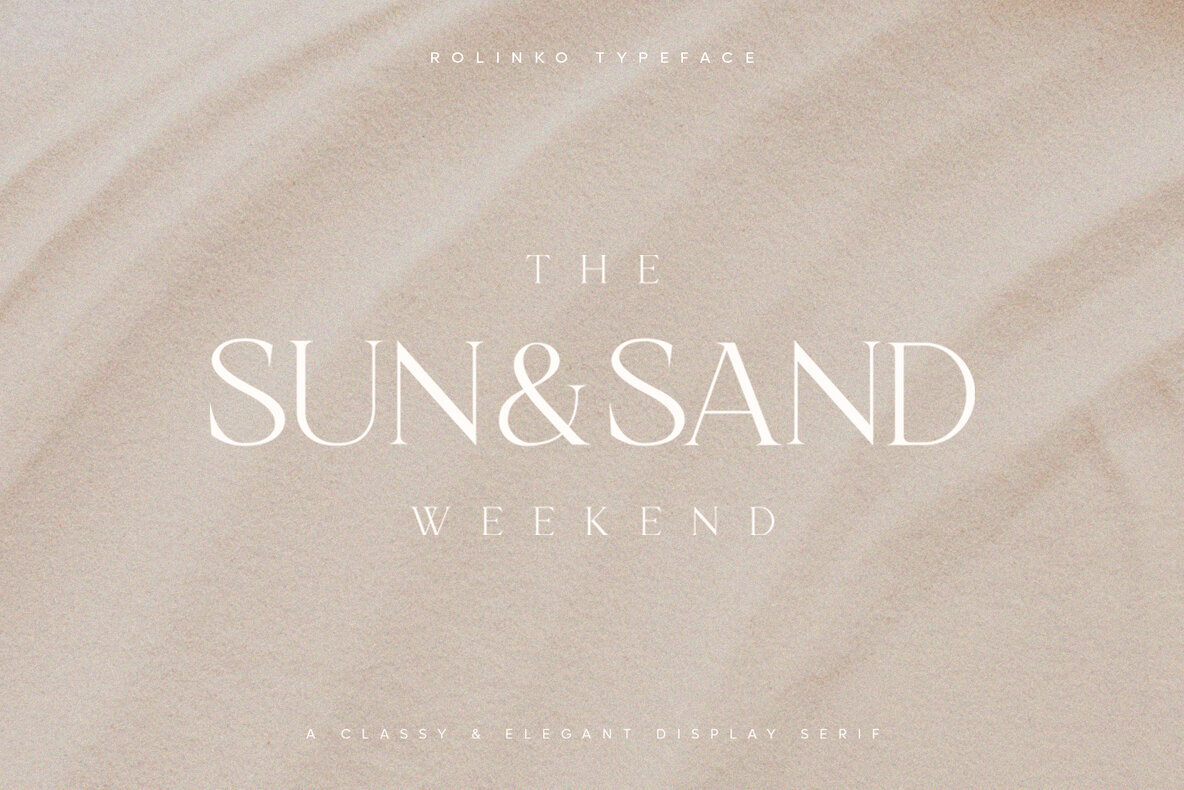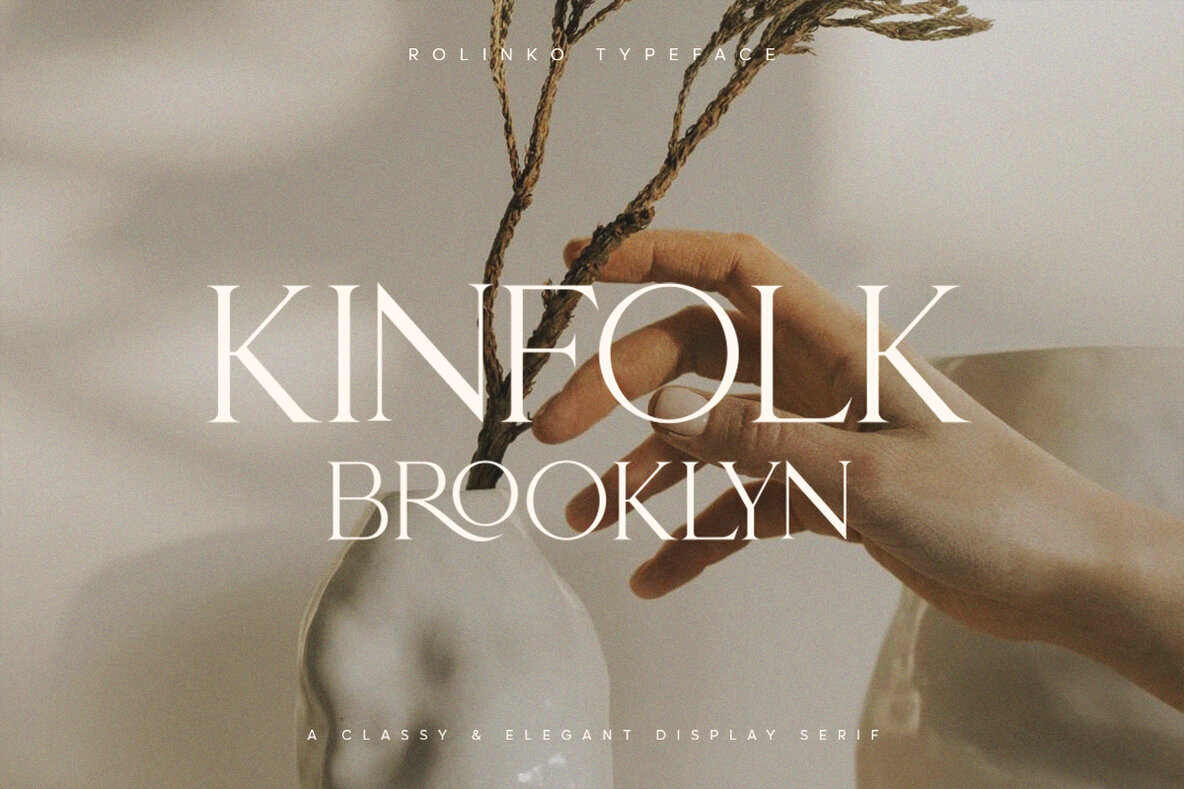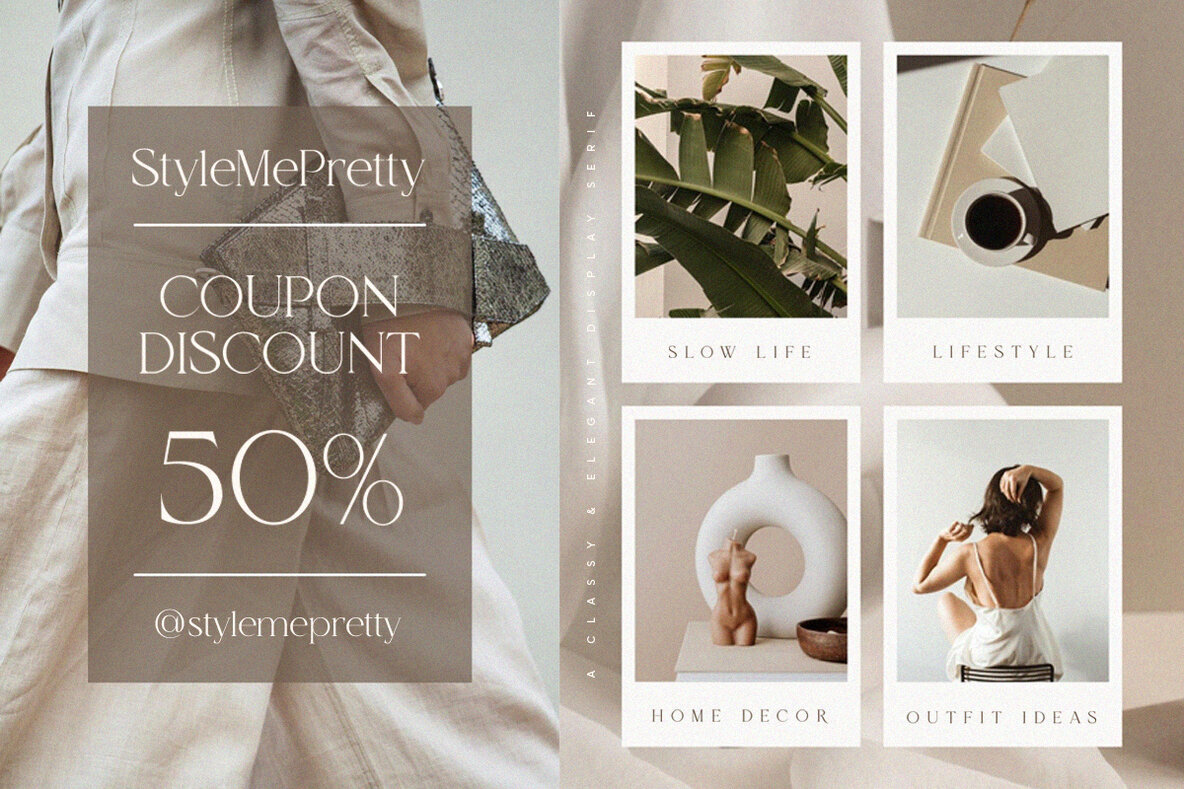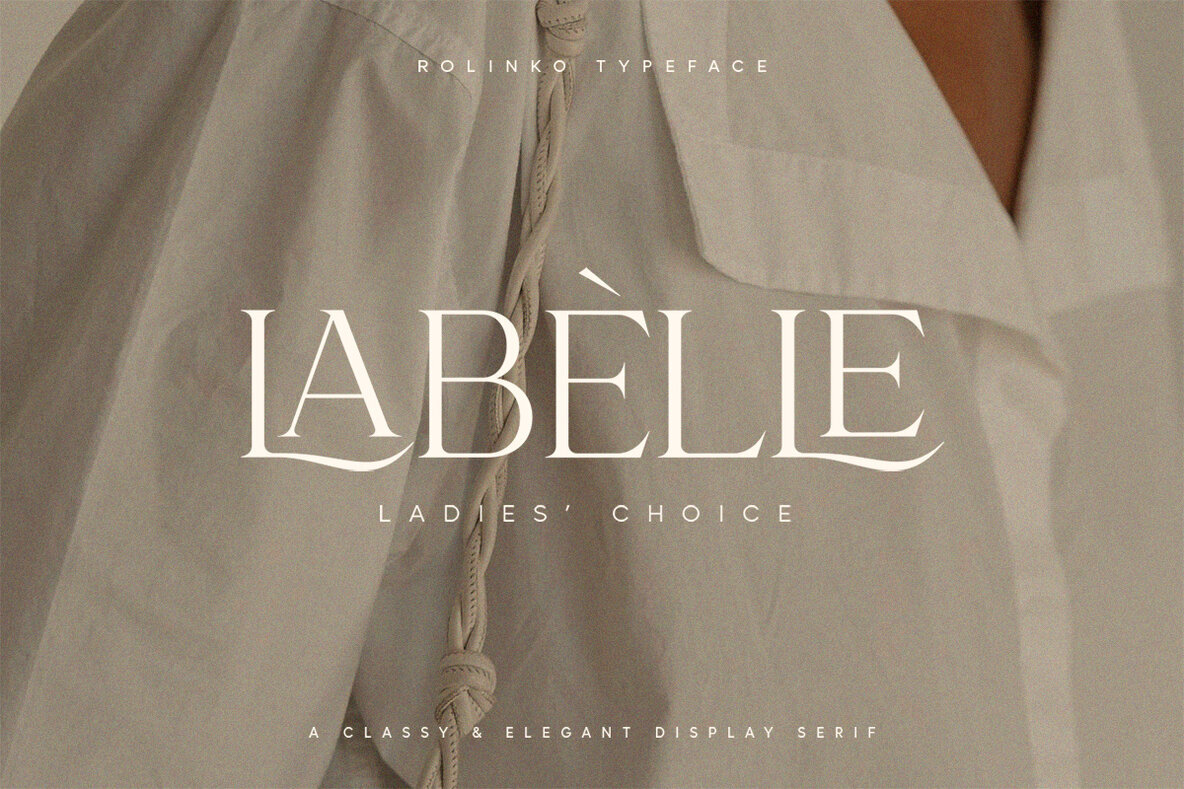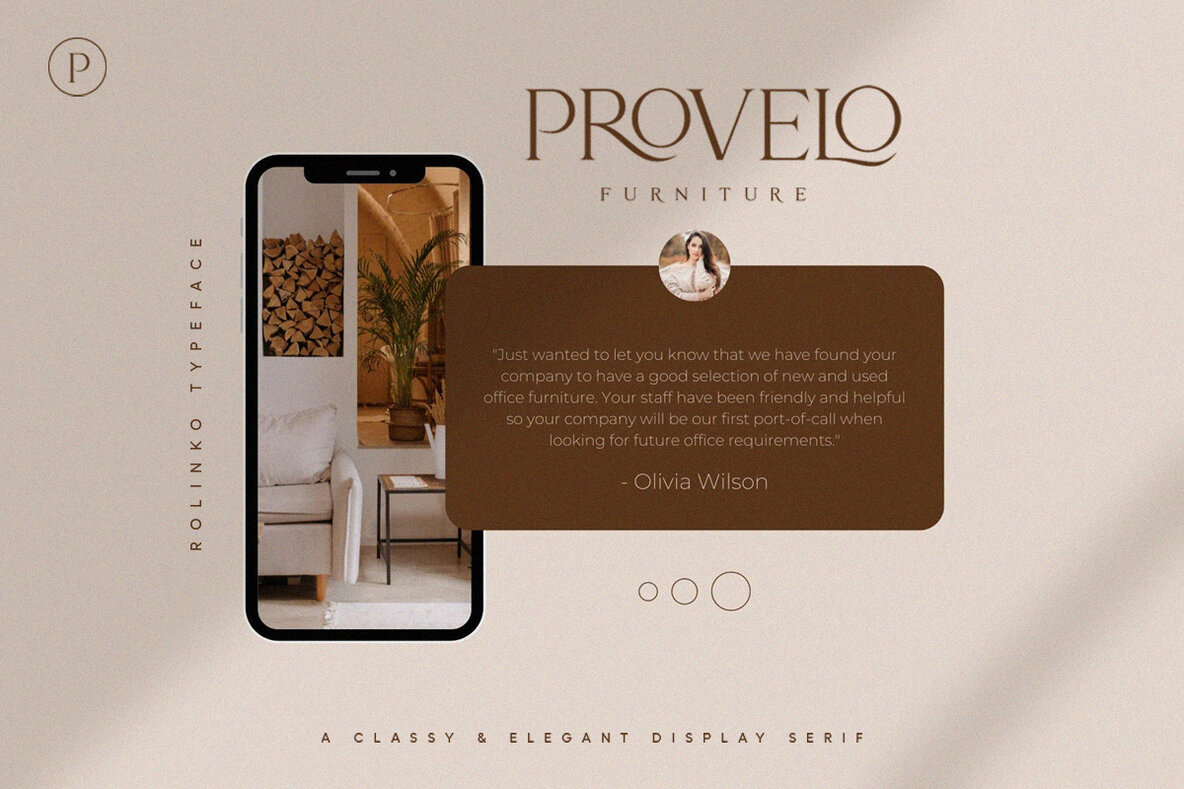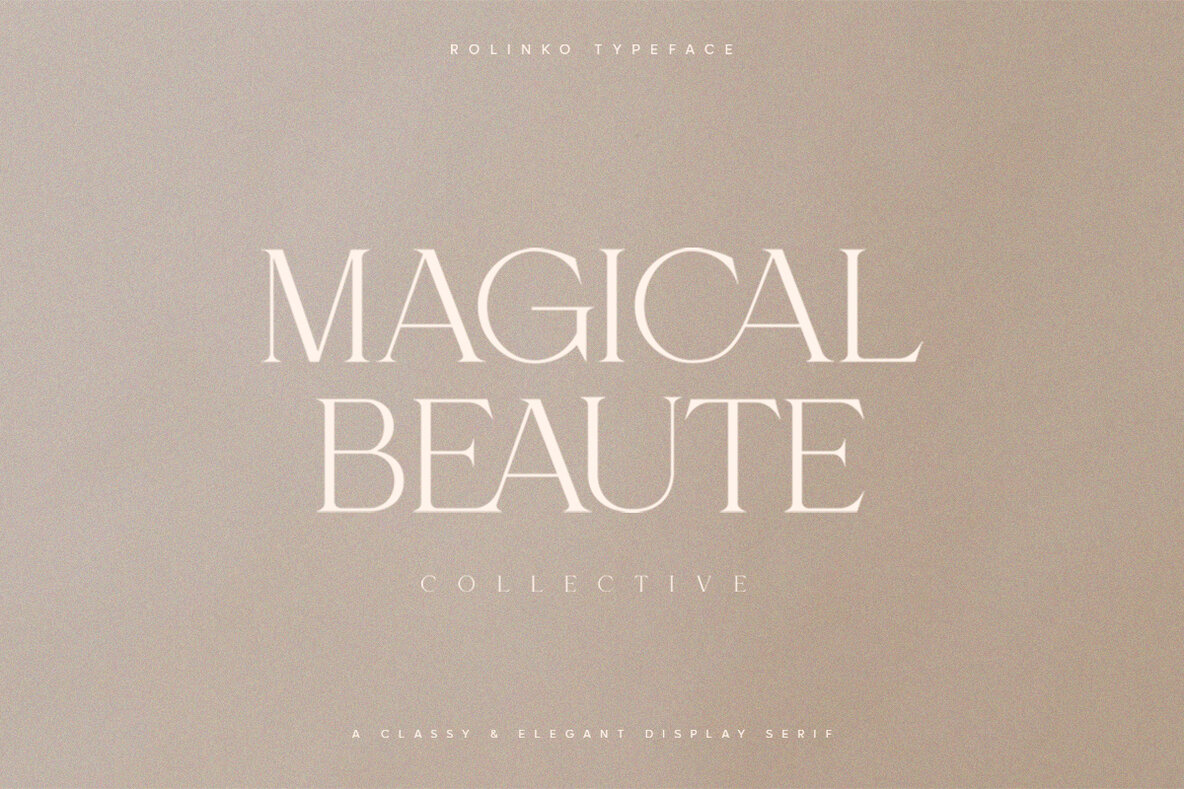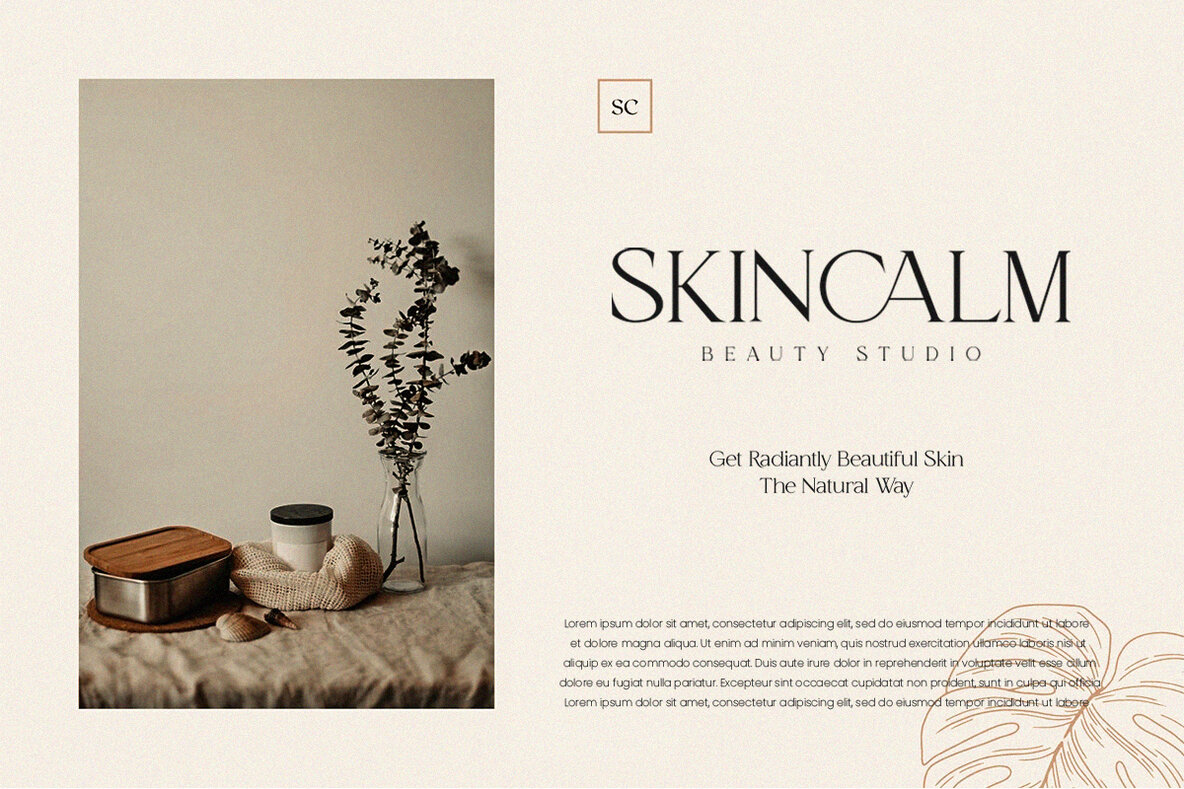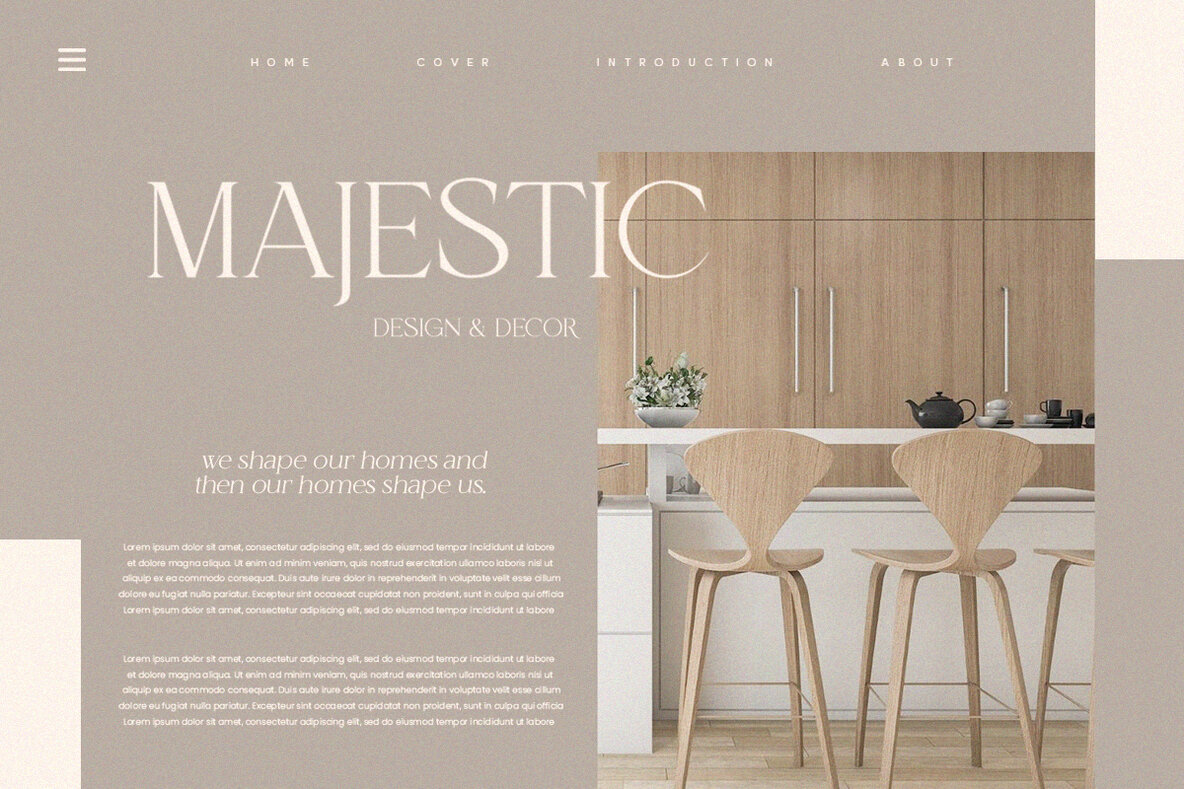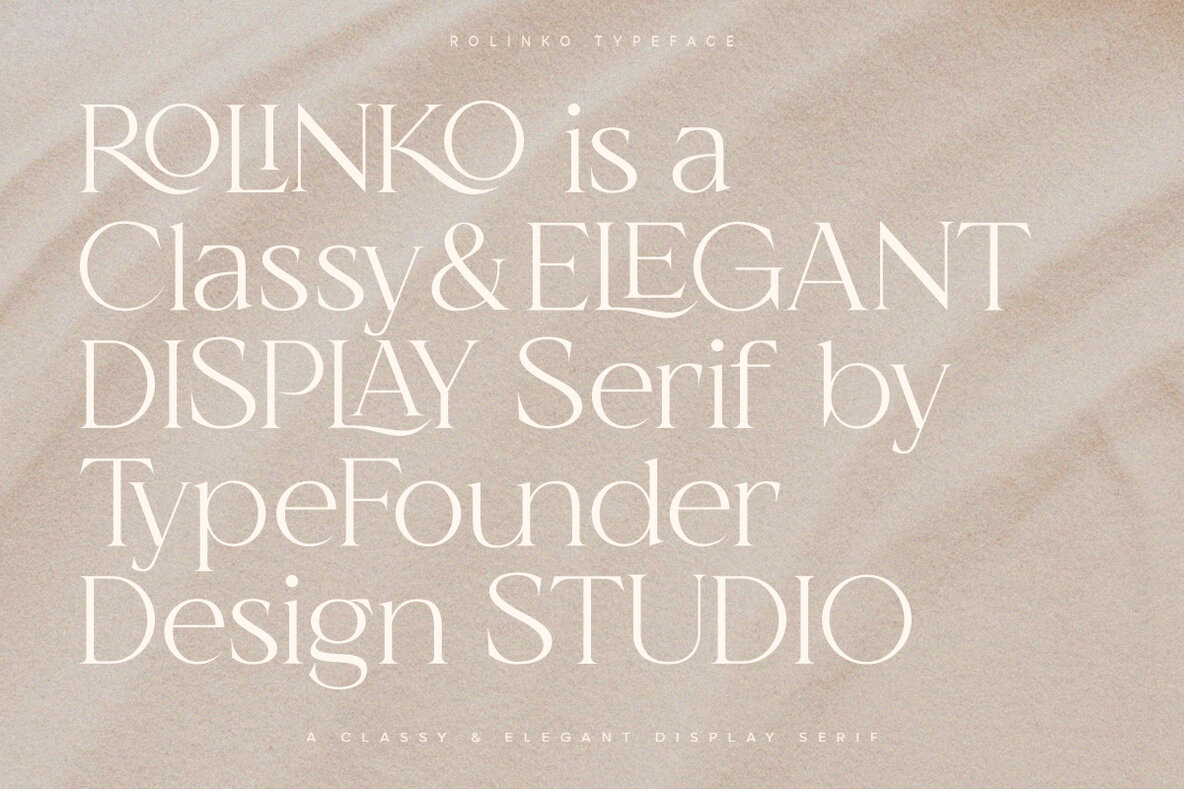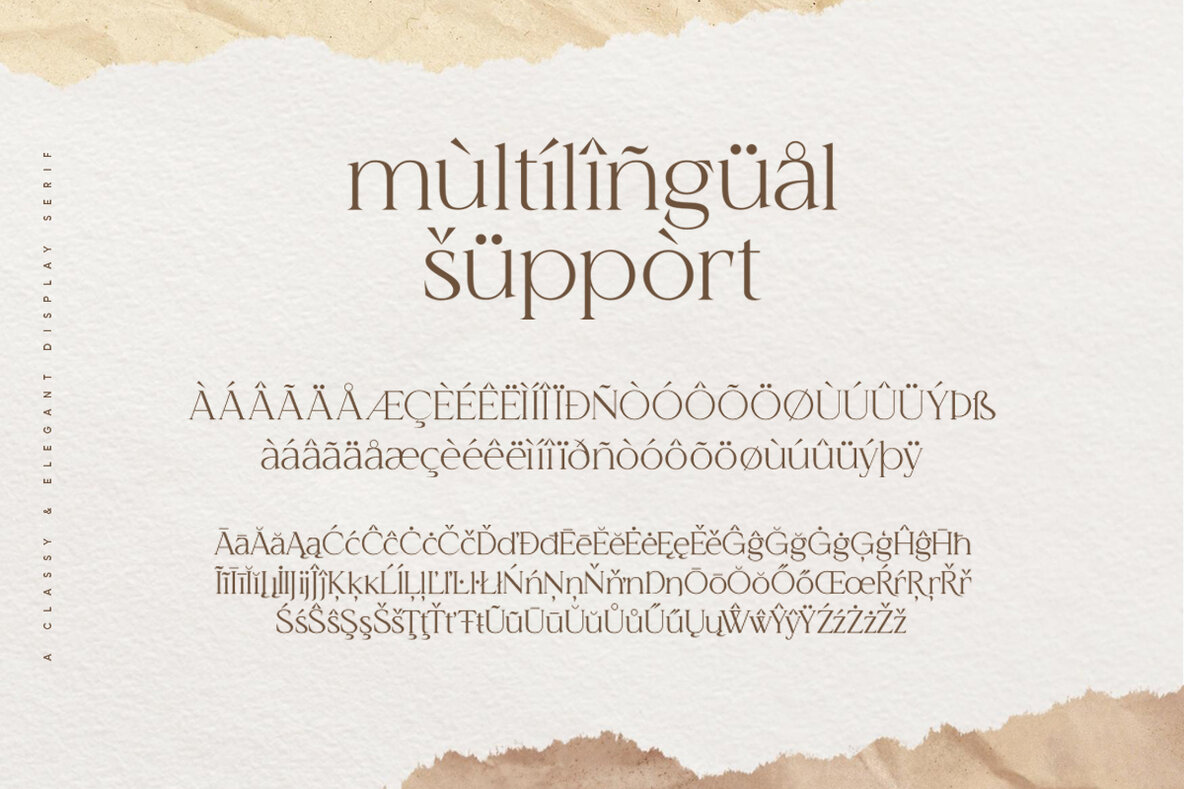
Rolinko Font
Rolinko by TypeFounder captures a perfect harmony of elegance and modernity. This serif typeface is adept in both large-scale displays and intimate text settings, making it a versatile choice for a range of branding applications.Rolinko: A Modern Serif for Versatile Design